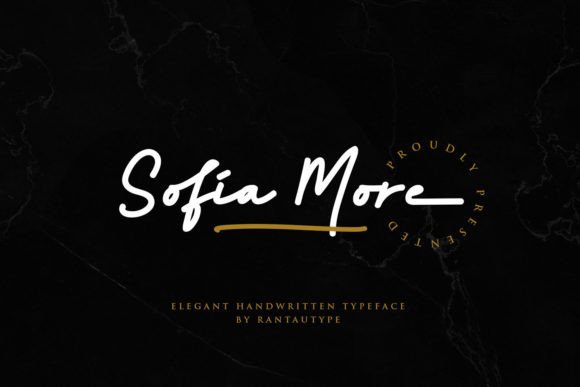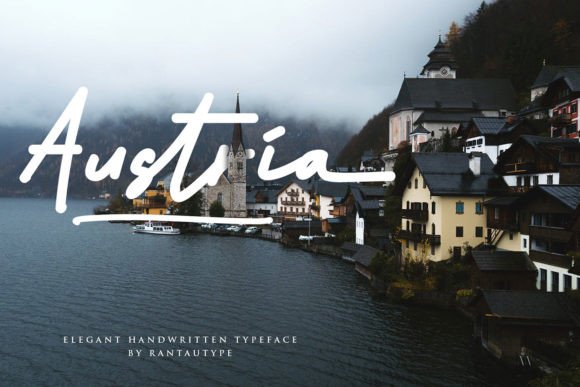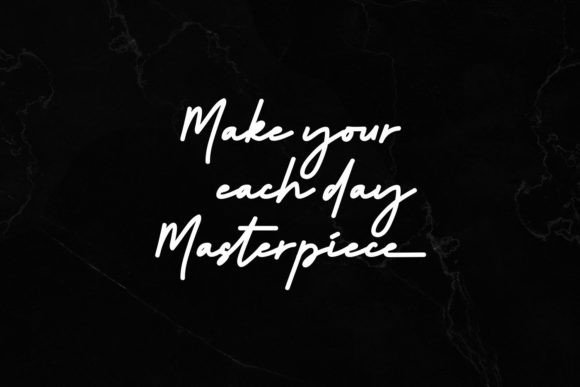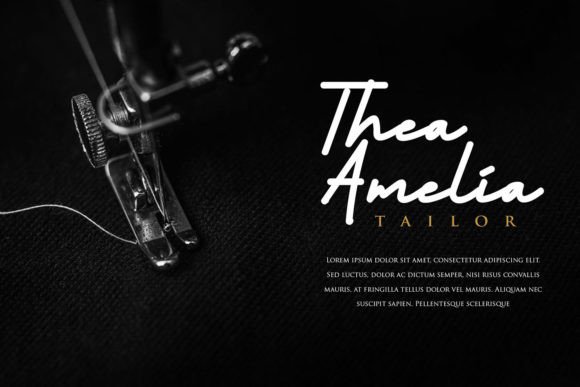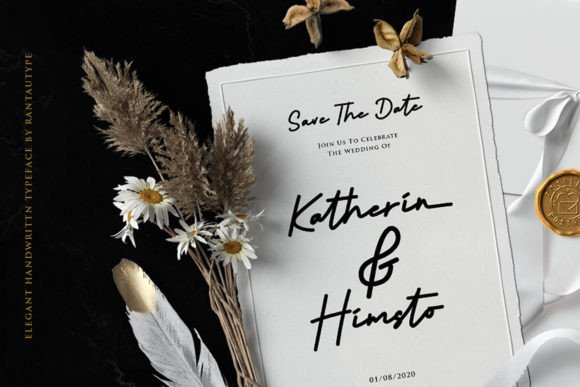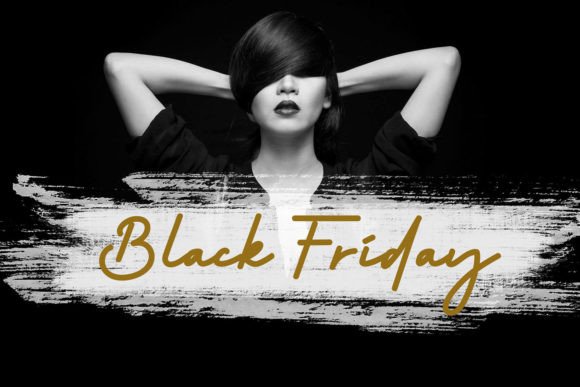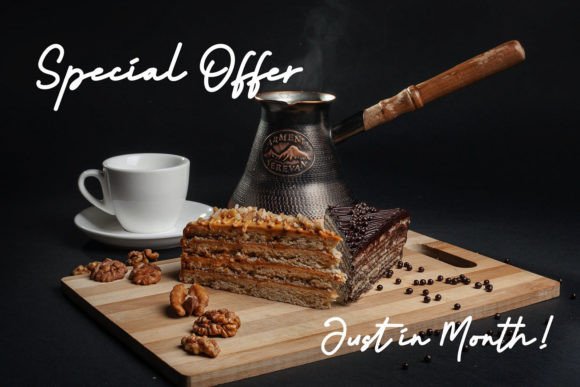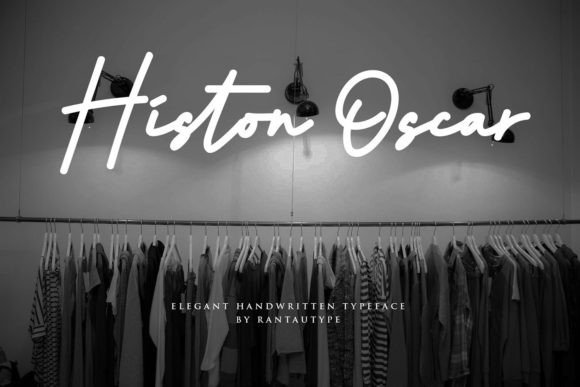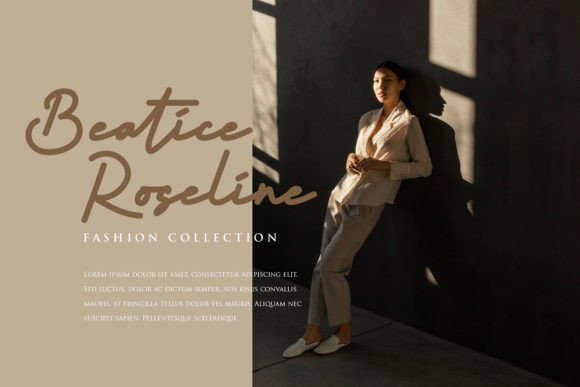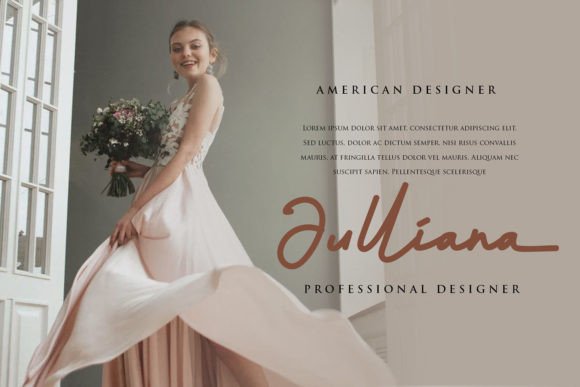
Sofia More Font
Add Stylish and Cool Flair with Sofia More Font
The Sofia More font is a stylish and cool handwritten script designed to bring personality and creativity to your designs. Its modern, flowing strokes make it perfect for creatives who want to add a fresh and confident touch. Whether you’re working on branding, invitations, or digital art, Sofia More helps your projects shine.
Perfect for Creative Projects and Branding
The Sofia More font fits a variety of applications including logos, social media graphics, product packaging, greeting cards, and more. Its stylish handwritten style adds warmth and individuality, making your work stand out and feel personal.
A Handwritten Script with Personality
Each letter in the Sofia More font is crafted with care to balance artistic flair with readability. The font’s smooth curves and dynamic flow give your text a lively and approachable feel, perfect for modern and trendy designs.
Stylish and Readable Typography
While visually distinctive, the Sofia More font maintains excellent readability across different sizes. Whether used for headlines or smaller text elements, it ensures clarity without losing its unique character, making it versatile for many projects.
Make Your Designs Stand Out
Typography is key in defining your brand’s identity, and Sofia More adds a stylish and cool vibe. If you want a handwritten script font that combines confidence with legibility, download the Sofia More font today and elevate your creative work with fresh style.